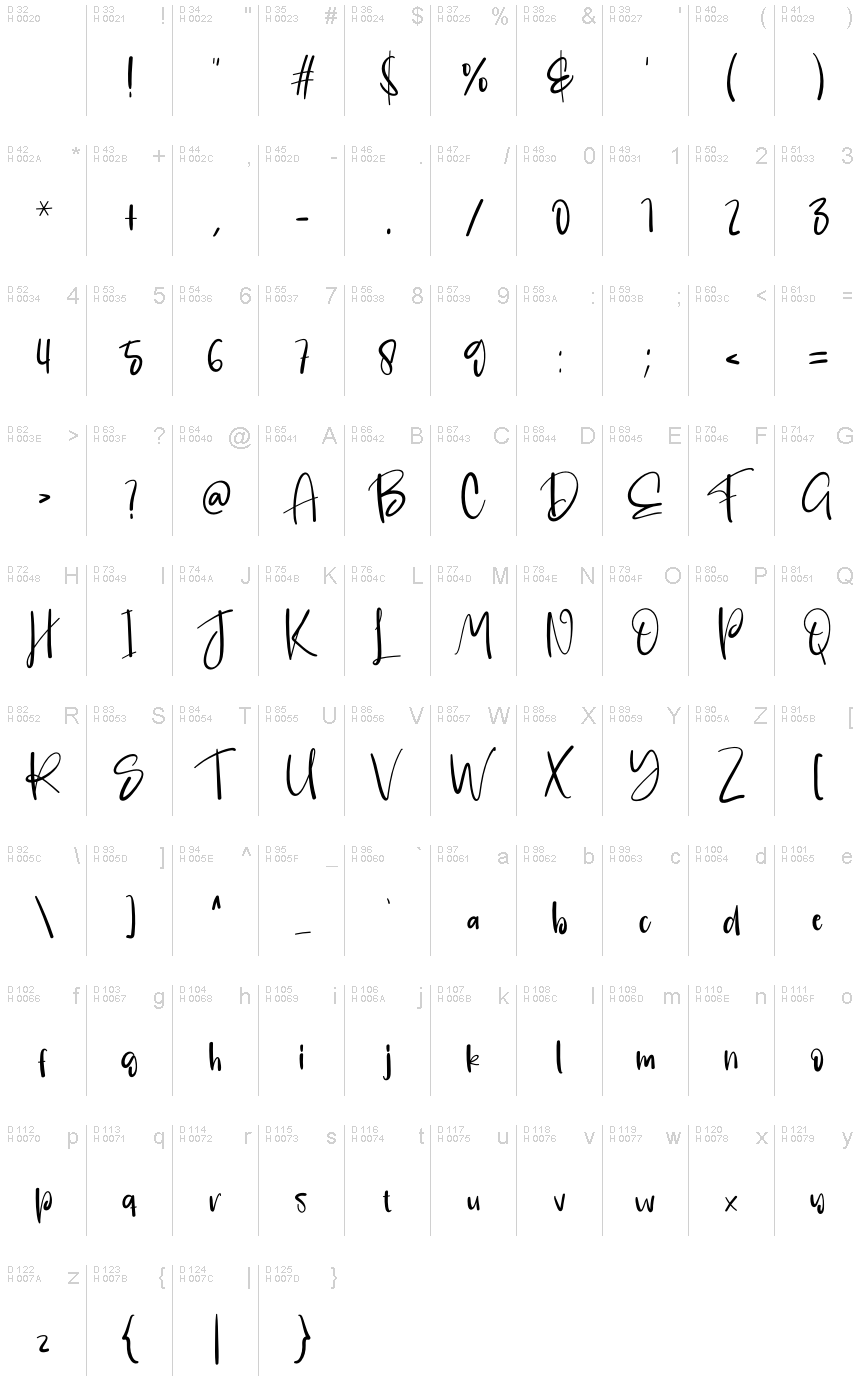
Eagle
Eagle, designed by Scratchones, is a captivating handwritten font that exudes a delicate charm. With its semi-light weight, this font is perfect for creating elegant and expressive designs.
Whether you're crafting wedding invitations, fashion magazines, or lifestyle blogs, Eagle adds a touch of sophistication to your projects. Its flowing characters and unique strokes bring warmth and personality to any text.
Let your creativity soar with Eagle – the ideal choice for bringing an artistic flair to branding materials, product packaging, and more.